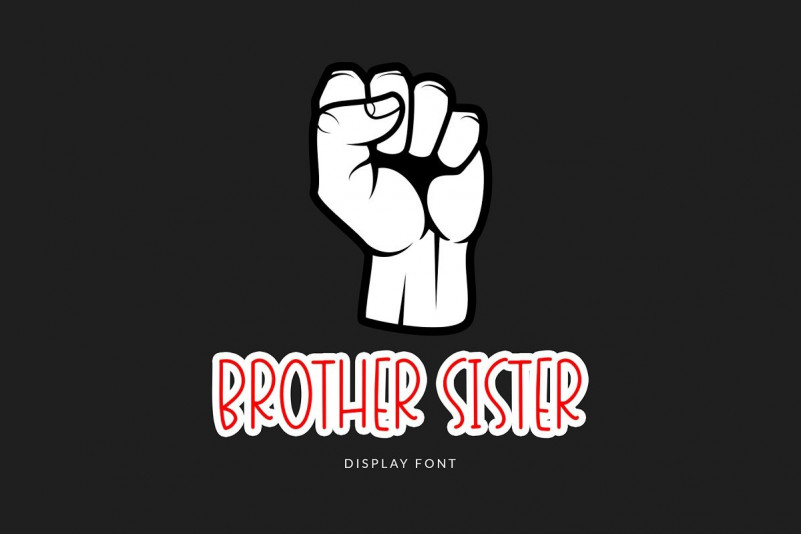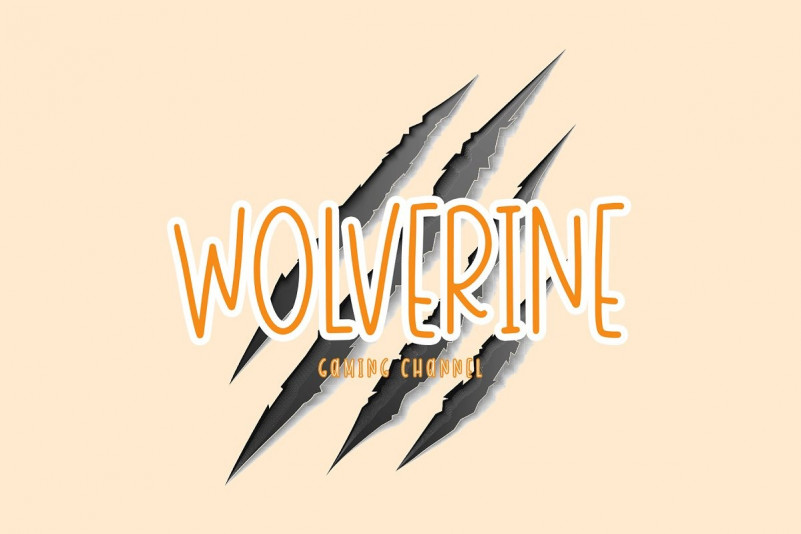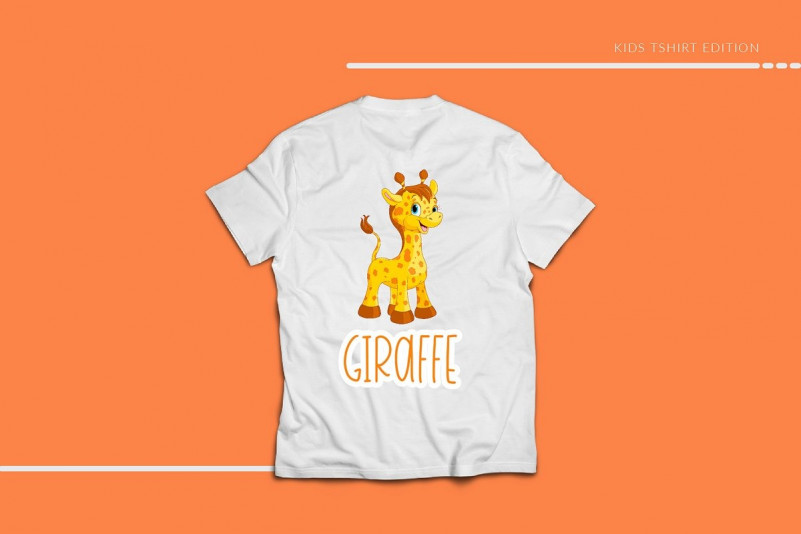
Brother Sister Font
Brother Sister Display Font can make your text appear playful, excited, and modern! it also fits for kids and nonformal company branding.
Brother Sister is perfect for cute and playful branding projects, logo, petshop and animal-related projects, social media posts, advertisements, product packaging, T-shirt design, product designs, label, photography, watermark, invitation, stationery, and any projects.